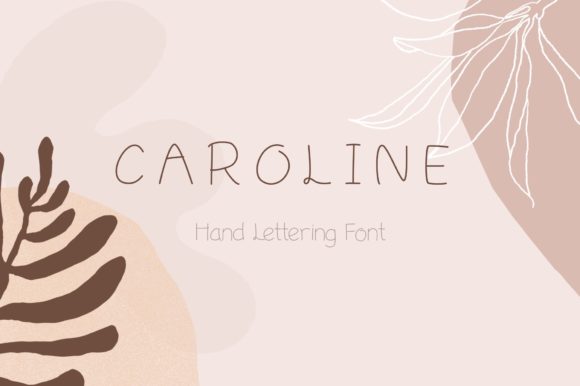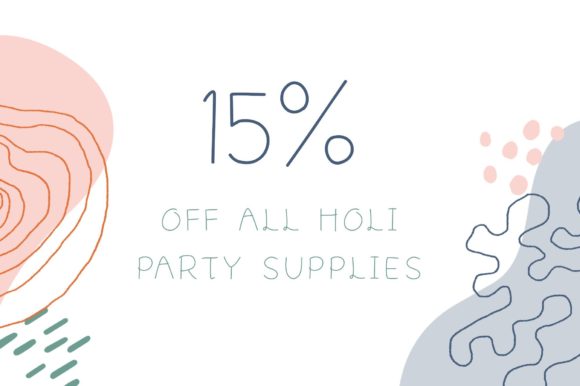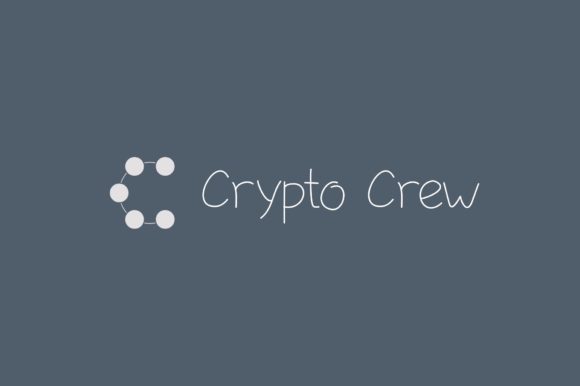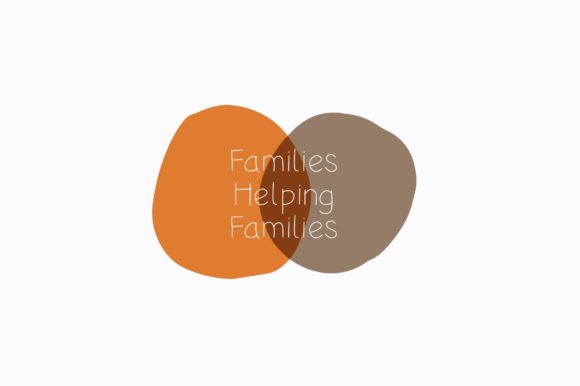
About Caroline Font
Caroline is a slim and chic handwritten font that will add the perfect dainty accent to your creative ideas!
Use the font for Cricut projects, design, logos, branding, decor, mugs, pantry labels, wedding invitations, stickers, business cards, greeting cards, posters, social media, planner prints, and more!